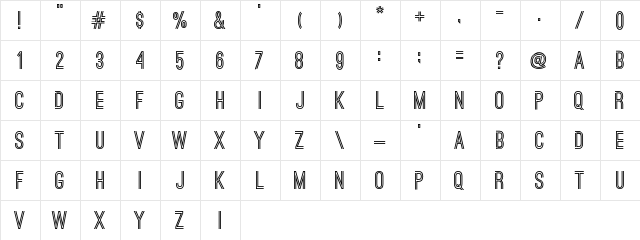
Ostrich Sans Bold
| Foundry | Tyler Finck |
| Designer | Tyler Finck |
Design Context for Ostrich Sans Typeface
Ostrich Sans is a composed and adaptable typeface that performs quietly and consistently across a wide range of design contexts. Its bold stroke weight gives it real presence on the page.